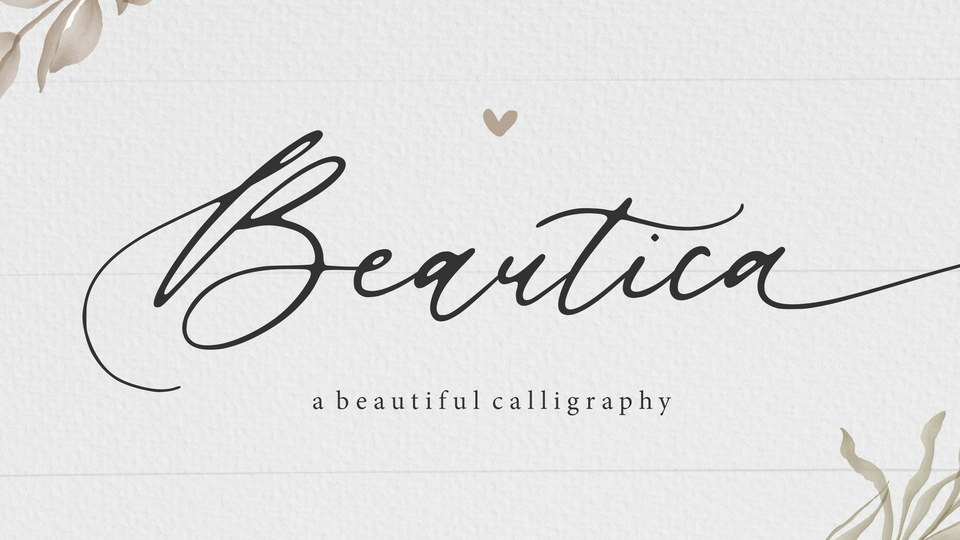
Download Beautica font, a flowing handwritten typeface, described by an elegant touch, perfect for your favorite projects. With its incredibly distinct and timeless style, Beautica font is perfect to create spectacular designs.
Designer: Balpirick Studio